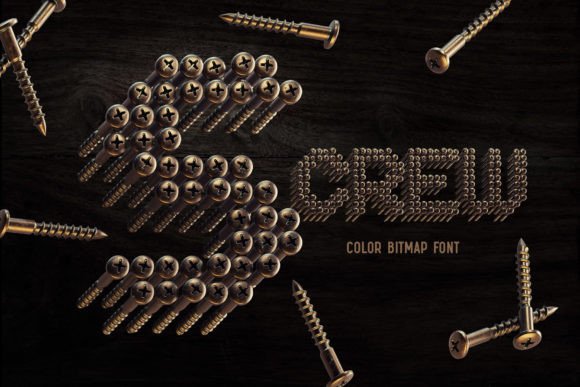
Behold the S-CREW Font, a remarkable creation by Gleb Guralnyk, designed to turn your designs into captivating works of art. This extraordinary font family boasts a collection of vibrant, three-dimensional letters, each meticulously crafted from gleaming bronze screws. Prepare to be astounded as this font breathes life into your projects, captivating the attention of all who lay eyes upon it.
Visualize your designs adorned with the S-CREW Font, radiating an aura of vintage charm that transports you back in time. Imagine the awe-inspiring impact it will have on your posters, flyers, logos, and social media graphics. The intricate details of each letter, rendered with exceptional precision, will leave your audience mesmerized.
Step into a world where creativity knows no bounds, where the S-CREW Font becomes your secret weapon for creating designs that resonate with your audience. Let your imagination soar as you utilize this font to craft eye-catching headlines, elegant invitations, and unforgettable branding materials that leave a lasting impression.
Unlock the potential of the S-CREW Font and elevate your designs to unprecedented heights. Embrace the power of this font to captivate, inspire, and leave an indelible mark on the hearts and minds of your audience. With its vintage allure and modern sensibility, the S-CREW Font is your gateway to creating designs that truly stand the test of time.